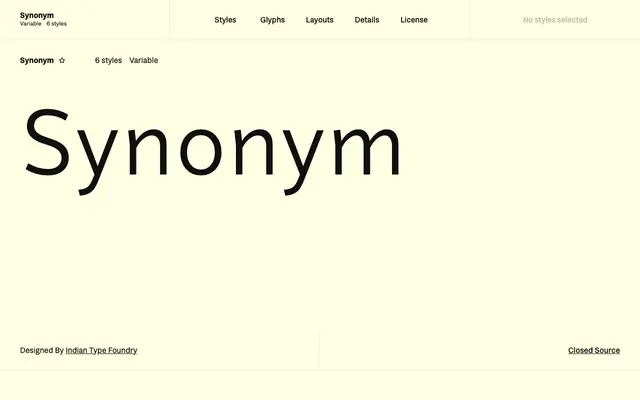
Synonym
Fontshare · Hugo Dumont · 2021
A six-weight humanist sans by Hugo Dumont, with visible stroke contrast, diagonal terminals and double-storey 'a' and 'g' across all weights.
Designed by Paris-based Hugo Dumont and released via Fontshare in 2021, Synonym sits apart from purely monolinear humanist sans serifs through its moderate stroke contrast and the diagonal cuts on the arms of letters such as 'E', 'F' and 'T'. The family runs from Extralight to Bold with a variable font included, and covers 135 languages across an extended Latin range. It suits editorial and branding work where legibility and a degree of personality are both required.
Described explicitly as humanist sans serif, with stroke contrast, diagonal terminals and double-storey letterforms that distinguish it from monolinear grotesques.